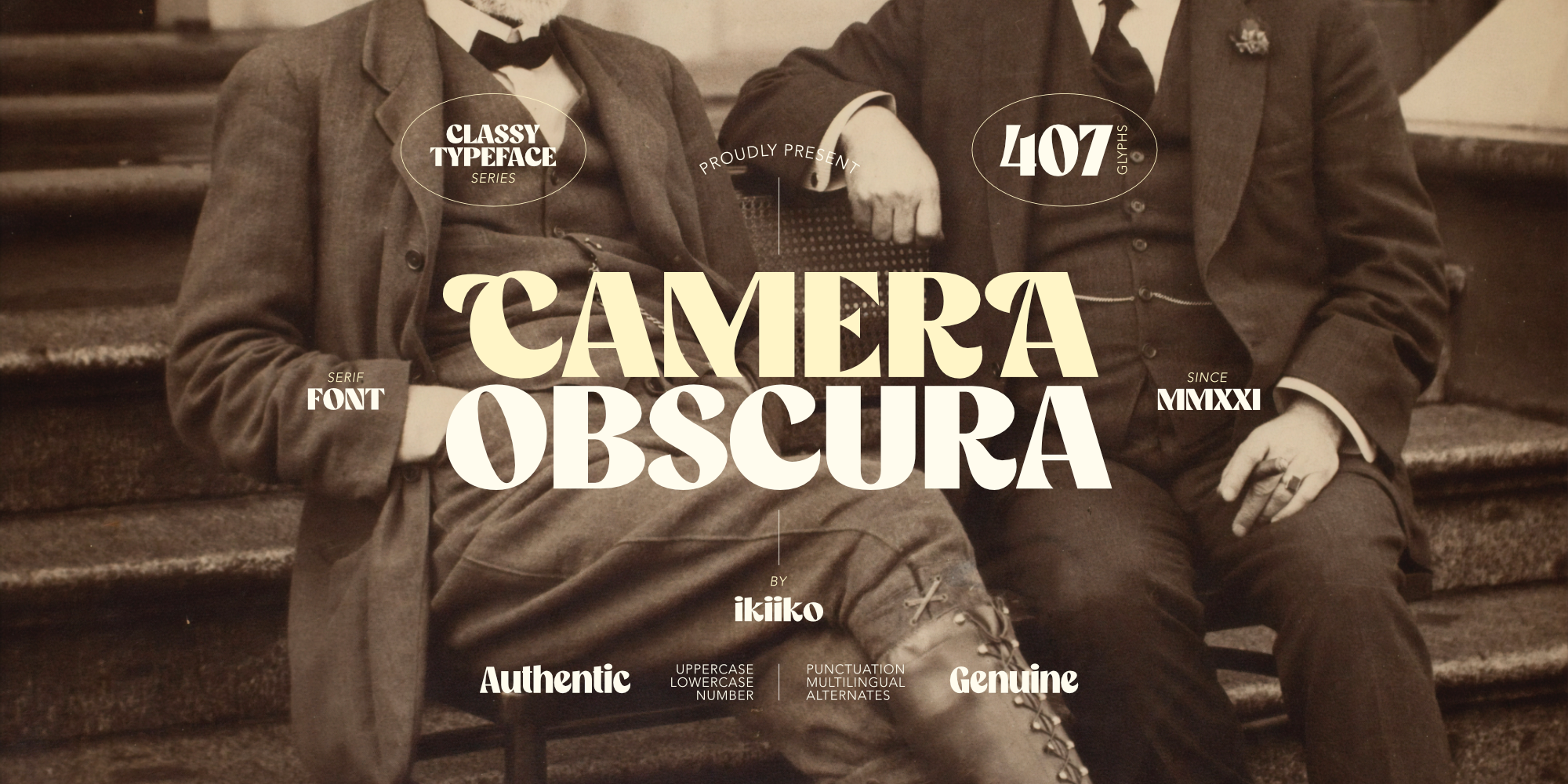
Please note, you must purchase this font for commercial use. You can download Camera Obscura Font Free Download for testing purposes and explore its bold, vintage design. Camera Obscura Font is perfect for creative branding, retro-themed projects, posters, logos, and any design that requires a distinctive, nostalgic touch.
With its unique letterforms and playful vibe, Camera Obscura Font brings a sense of fun and retro charm to your designs. It’s ideal for projects that aim to evoke a sense of the past while maintaining a modern appeal, making it perfect for event promotions, album covers, and quirky branding.
Camera Obscura Font Free Download supports multilingual characters, making it versatile for global projects. Its eye-catching design ensures your message stands out, whether in large headlines or smaller text.
For commercial use, make sure to acquire the appropriate license. Add the bold, retro flair of Camera Obscura Font to your designs and bring a touch of nostalgia to your creative projects.